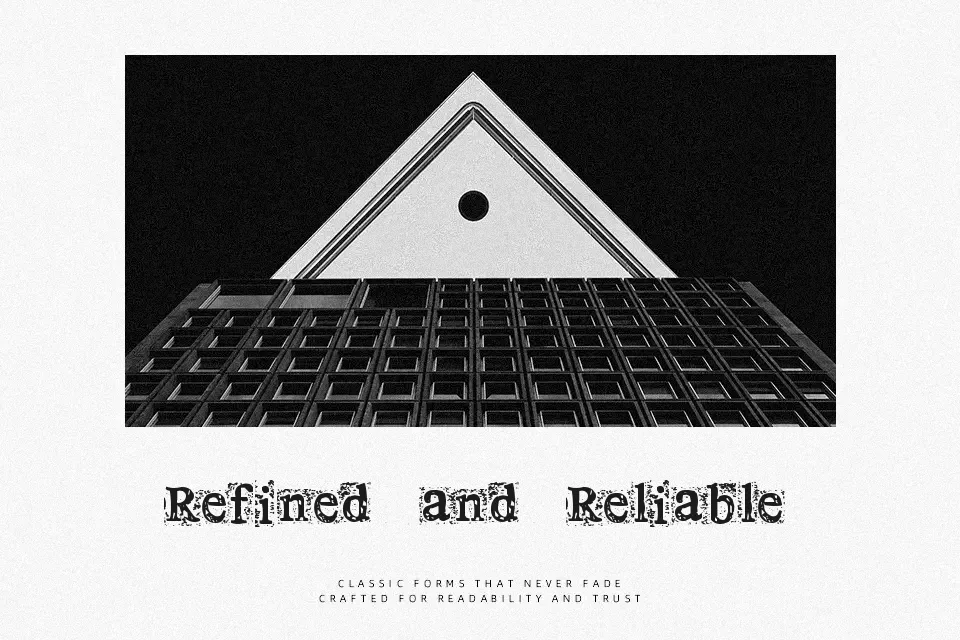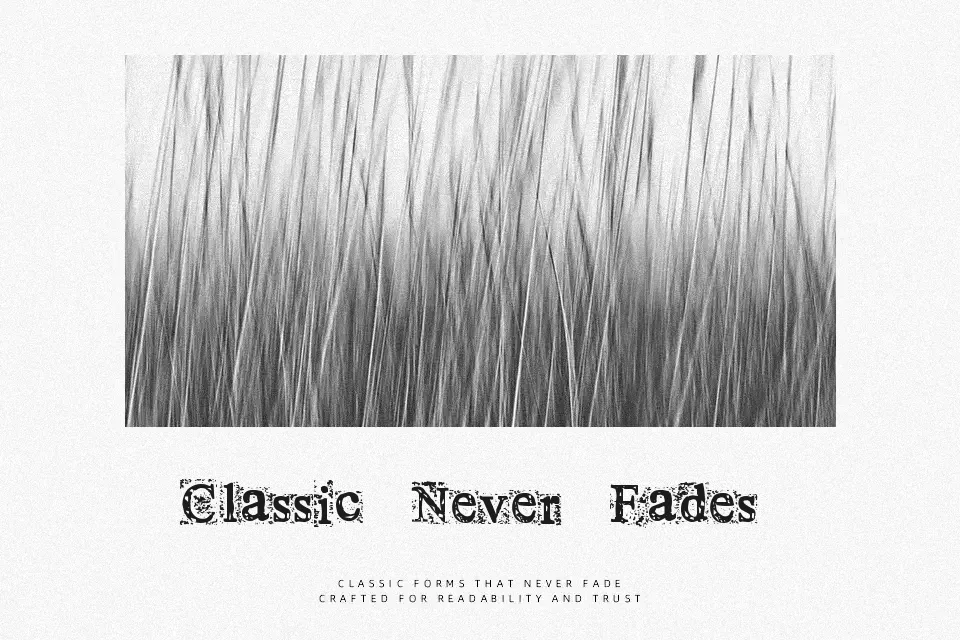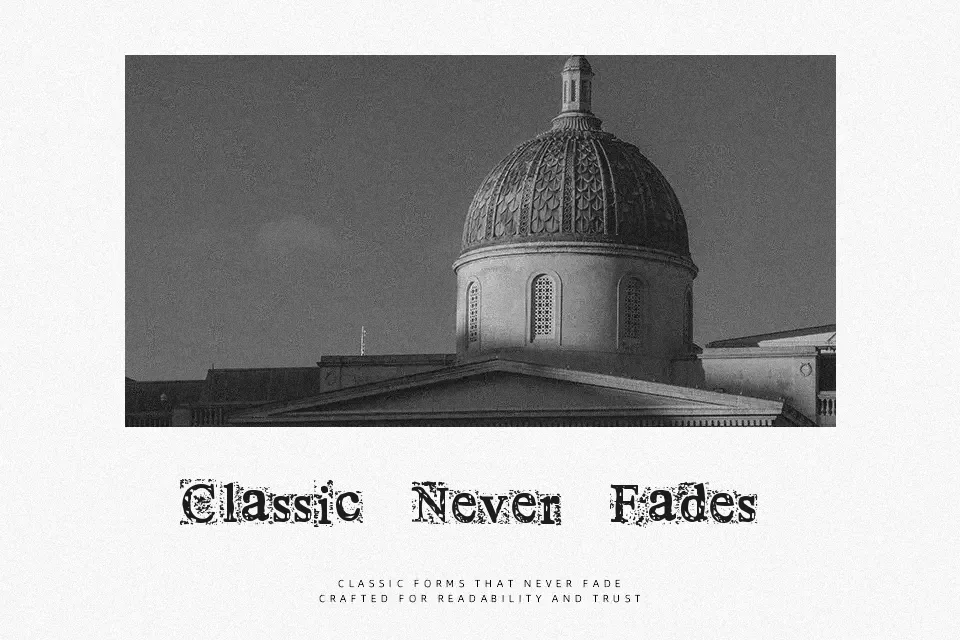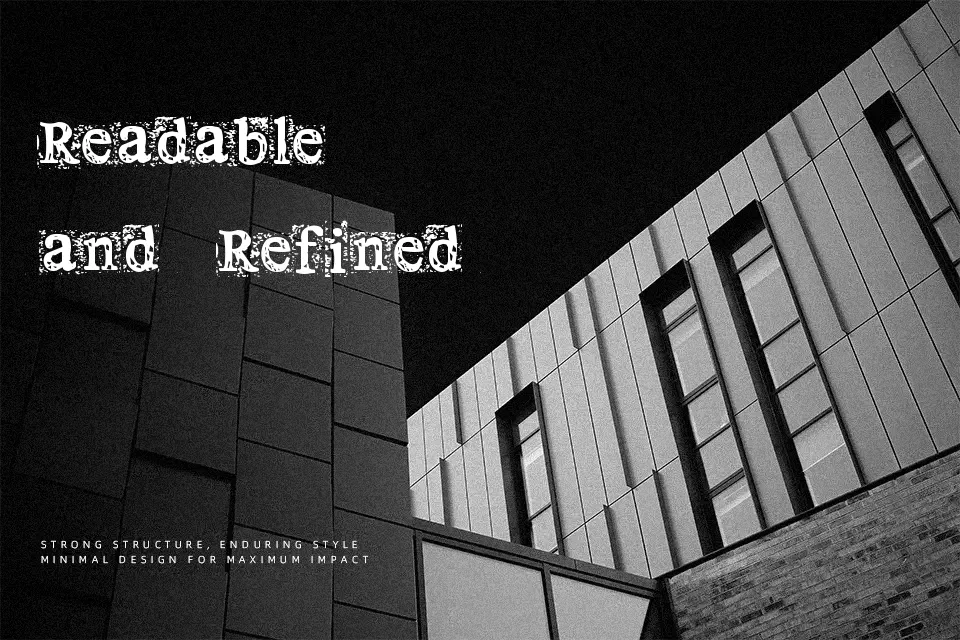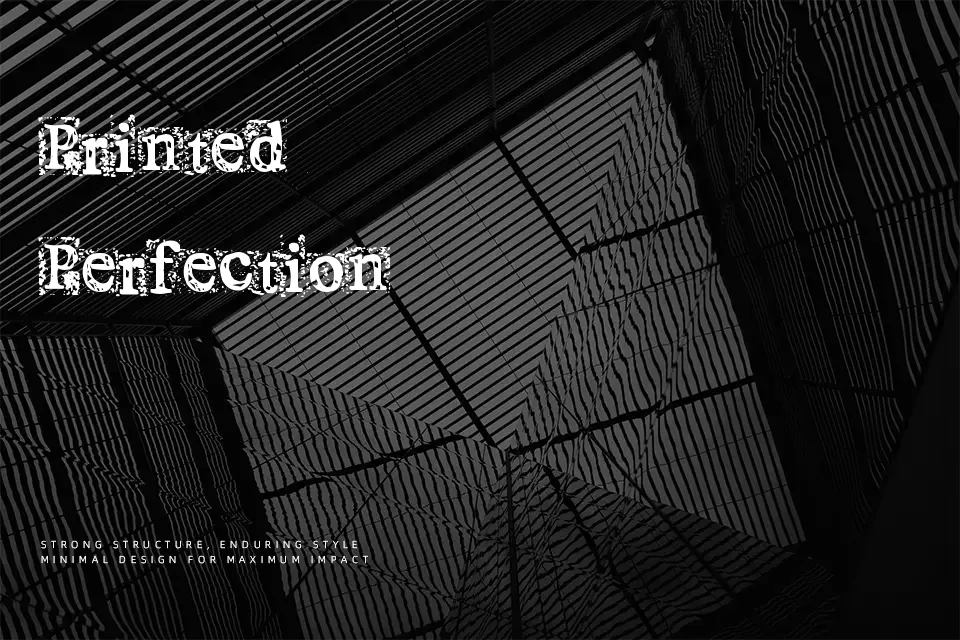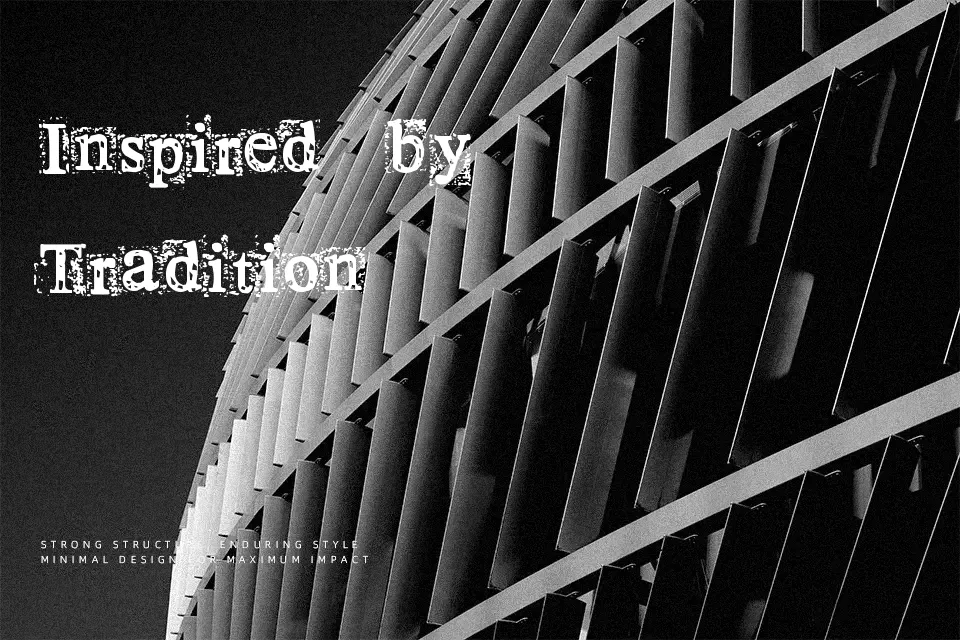
Times New Omen Font
Times New Omen Font presents heavily distressed serif letterforms marked by fractured strokes, eroded contours, and irregular bracketed terminals. The underlying structure maintains traditional Roman proportions, yet the heavy degradation creates rough outlines and tight spacing across both upper and lowercase glyphs. While this aggressive texture provides immediate dramatic presence for cinematic title sequences, underground music flyers, and gothic streetwear, the decorative erosion significantly reduces letterform distinction at smaller scale. The dense shapes maintain strong visual punch in large headline arrangements, but the jagged edges become muddy during continuous reading. Consequently, the typeface remains unsuited for lengthy body text or dense editorial layouts.
Best For: underground music flyers, horror movie posters, gothic apparel graphics, themed video game headlines
Not Ideal For: long paragraph text, corporate stationery, mobile app interfaces, technical documentation
Perfect for film, gaming, and headline, with a dark and decorative style.